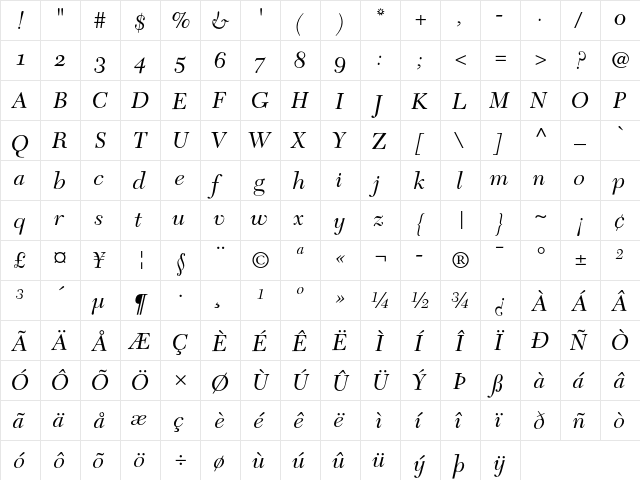
New Caledonia Italic OsF
Design Context for New Caledonia Typeface
New Caledonia is a composed and adaptable typeface that performs quietly and consistently across a wide range of design contexts. Its italic angle brings a sense of urgency and motion to the letterforms.
Pro Tip: Try New Caledonia for annotation and caption copy alongside an upright companion — the contrast in angle creates a dynamic but ordered typographic system.